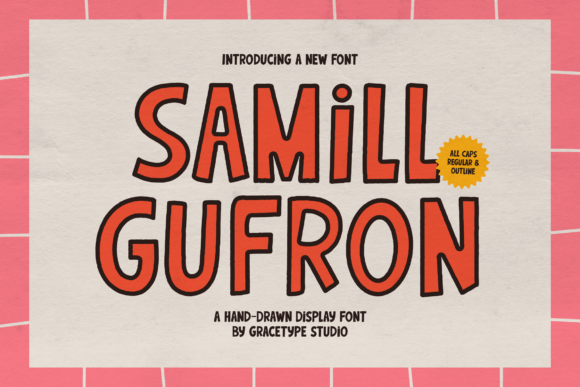
Samill Gufron: A Bold, Energetic Hand-Drawn Display Font
In a digital landscape saturated with sleek, geometric sans-serifs and rigid corporate typefaces, there is a growing hunger for personality. Designers and brand owners are increasingly seeking visual voices that feel human, imperfect, and alive. This is where Samill Gufron steps in. It is not merely a font; it is a statement piece designed to inject pure graphic energy into any project. Whether you are crafting a logo for a startup, designing a poster for a local event, or creating assets for children's products, Samill Gufron offers the striking cartoon aesthetic needed to grab attention instantly.
The Essence of a Cartoon Aesthetic
At its core, Samill Gufron is defined by its bold, energetic character. Unlike fonts that strive for mathematical perfection, this typeface embraces a charmingly slightly imperfect structure. These intentional irregularities are what authenticate its hand-drawn origins. When viewers encounter text set in Samill Gufron, they do not see a sterile computer-generated output; they see the mark of a human hand, complete with the enthusiasm and spontaneity of a sketch.
The font is an all-caps display typeface, meaning it is engineered specifically for headlines, logos, and short bursts of impactful text rather than long-form body copy. Its chunky, rounded characters provide a sense of approachability while maintaining a commanding presence. The "cartoon" label often implies childishness, but in the context of professional design, it signals vibrancy, fun, and a break from convention. For entrepreneurs and marketers looking to cut through the noise, this playful graphic punch is exactly the tool required to stop the scroll.
Key Characteristics and Structural Strengths
To understand why Samill Gufron works so well, one must look at its structural details. The most notable feature is its versatility, achieved through two distinct styles: regular and outline. This duality allows designers to create layered, dynamic compositions without needing complex image editing software.
- Chunky, Rounded Forms: The heavy strokes and soft curves make the letters feel substantial and friendly. This weight ensures legibility even at smaller sizes on mobile devices, while the rounded edges soften the impact, making the message feel inviting rather than aggressive.
- Hand-Drawn Imperfections: The slight variations in stroke width and alignment prevent the text from feeling robotic. These nuances add texture and depth, giving the design a tactile quality that resonates with audiences tired of polished, generic aesthetics.
- Dual Style System: The availability of both filled (regular) and outline versions is a game-changer for layout flexibility. You can easily overlay the outline style behind the regular style to create a drop-shadow effect, or use them side-by-side to create contrast within a single headline.
These characteristics combine to create a typeface that feels loud and fun without sacrificing readability. It communicates a visual voice that is confident yet accessible, making it an excellent choice for brands that want to appear modern and creative.
Practical Applications Across Industries
The utility of Samill Gufron extends far beyond simple decoration. Its unique aesthetic makes it a practical solution for a wide range of personal, professional, and commercial environments. Here is how different sectors can leverage this typeface to enhance their communication strategies.
Comic Books and Publishing
For illustrators and publishers in the comic book industry, typography is half the battle. Dialogue bubbles need to pop, and sound effects need to scream. Samill Gufron provides the perfect vehicle for onomatopoeia and dramatic headlines. Its bold weight ensures that action words stand out against busy artwork, while the hand-drawn feel aligns perfectly with the artistic medium of comics.
Children's Products and Education
When designing for younger audiences, trust and engagement are paramount. Educators and toy manufacturers often struggle to find fonts that are legible enough for early readers but exciting enough to hold their interest. Samill Gufron strikes this balance effortlessly. Its rounded shapes mimic the way children learn to write, creating a subconscious connection. From workbook covers to packaging for educational games, this font signals that learning is an adventure.
Casual Branding and Startups
In the world of startups and casual branding, standing out is essential. A tech company might use a clean sans-serif for its interface, but its marketing campaigns need a hook. Using Samill Gufron for social media graphics, app store banners, or merchandise allows a brand to show its human side. It suggests a culture that values creativity and fun, which is highly attractive to the millennial and Gen Z demographics.
Vibrant Posters and Events
Event organizers know that a poster has seconds to capture attention. Whether it is a music festival, a food truck rally, or a community workshop, the headline needs to be impossible to ignore. The sheer volume and energy of Samill Gufron make it ideal for large-format prints. The outline style, in particular, allows for colorful backgrounds to bleed through the letterforms, creating a vibrant, layered look that draws the eye from a distance.
Whether you are a freelancer building a portfolio, a marketer launching a campaign, or an educator designing materials, incorporating Samill Gufron into your toolkit allows you to speak louder. It invites your audience to pause, smile, and engage. By leveraging its unique blend of chunky forms, outline versatility, and energetic structure, you can transform ordinary designs into memorable experiences that resonate long after the initial glance.